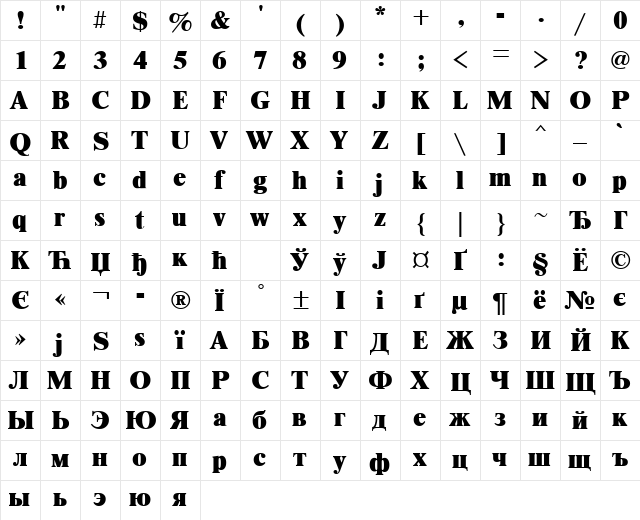
NewtonXCTT Regular
Design Context for NewtonXCTT Typeface
NewtonXCTT offers clean, dependable letterforms without strong stylistic allegiance, making it a practical choice for designers who need flexibility.
Pro Tip: Use NewtonXCTT in both headline and body roles to test its range before committing to a single application.